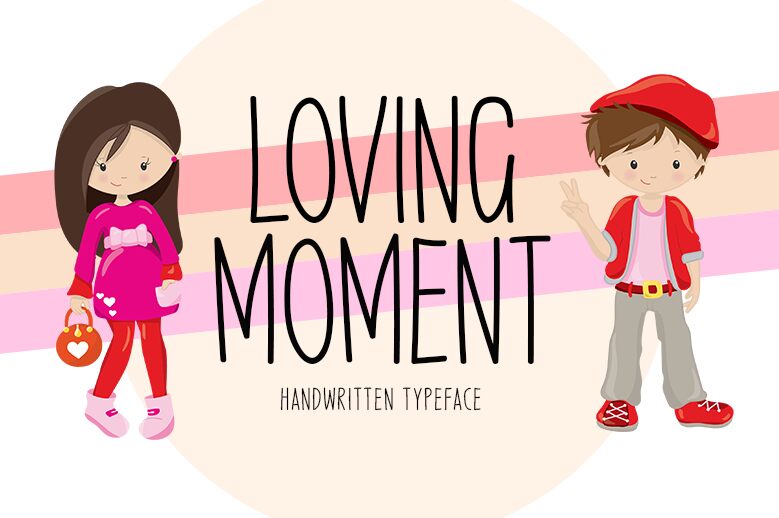
Loving Moment, designed by Md Shohail Bhuian, captures the essence of personal touch with its handwritten style and semi-light weight. Its extra-condensed width adds a distinctive charm, making it a standout choice for designers seeking to instill intimacy and warmth in their projects. The font's aesthetic is both inviting and elegant, offering a balance that works well in heartfelt invitations, branding for boutique businesses, or any creative work where a touch of human presence is desired.
Loving Moment's allure lies in its ability to marry casual grace with functional readability, ensuring that your message not only reaches the heart but also pleases the eye.